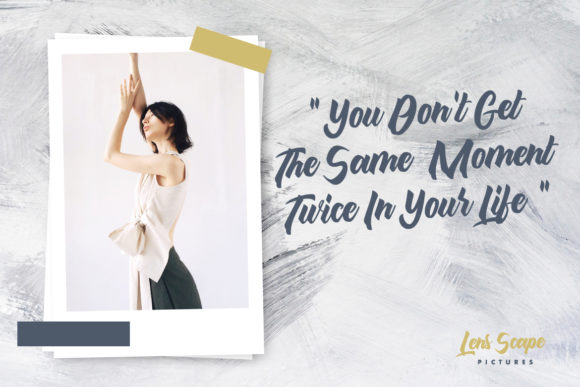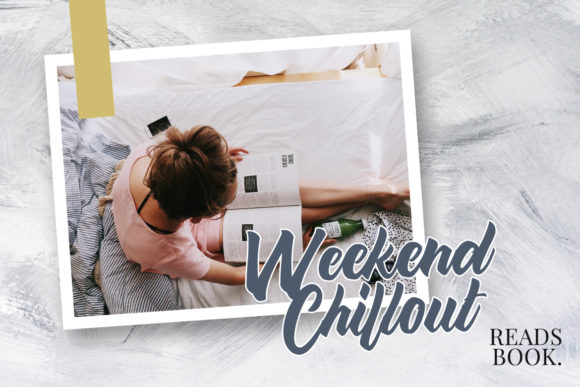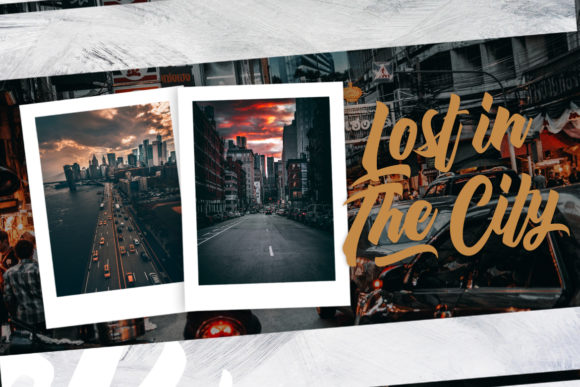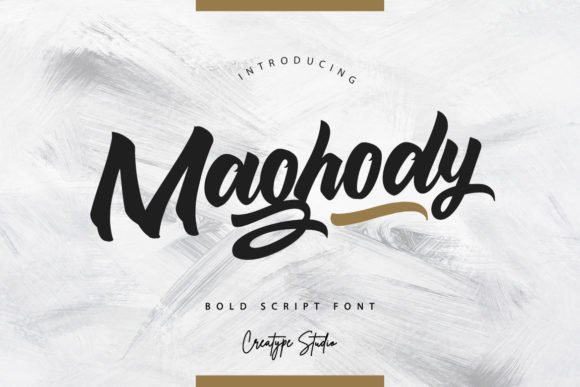
Introduction to Maghody Script Font
The Maghody is a script typeface with bold and strong natural movements.
It’s perfect for many different project such as logos & branding, invitations, stationery, wedding designs, social media posts, advertisements, product packaging, product designs, labels, photography, watermarks, special events, and much more .
Key Features of Maghody Script Font
Why Choose Maghody Script Font?
Maghody Script Font offers exceptional quality and versatility, making it a valuable addition to your design toolkit. Whether you’re creating for personal projects or commercial use, Maghody Script Font delivers professional results.